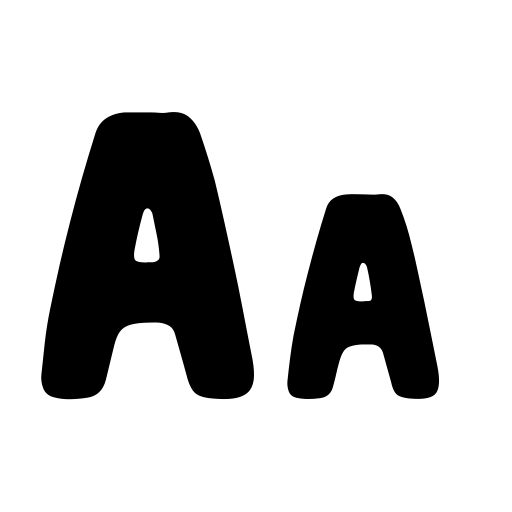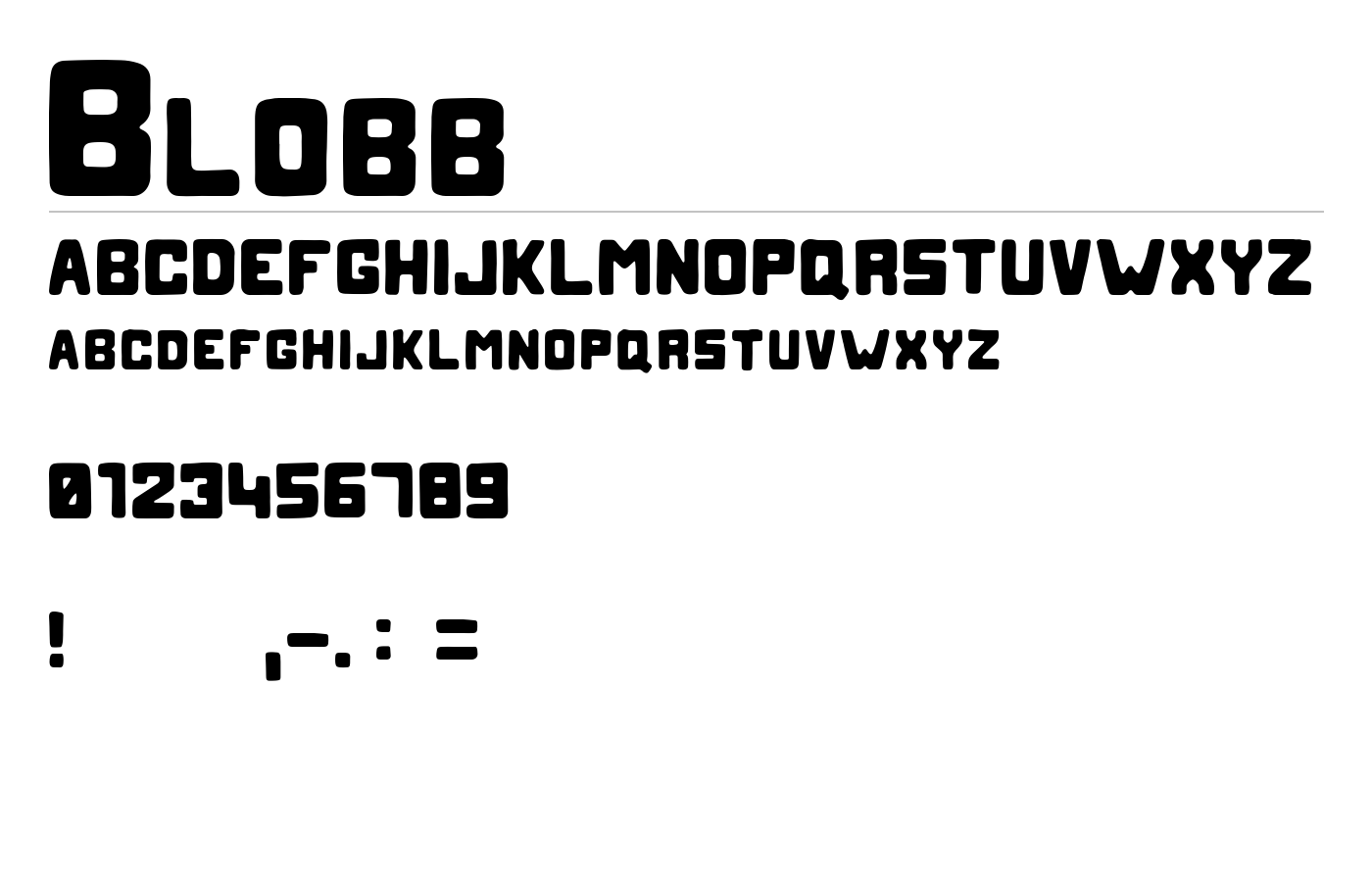
Blobb Font is a bold, rounded sans-serif typeface with a playful and slightly quirky character. Its thick, soft-edged letterforms and consistent weight create a friendly and approachable look, making it ideal for eye-catching headlines, children's materials, and casual branding. With its unique, blob-like shapes, this font brings a fun, informal vibe that works well in creative projects and lighthearted designs.
Blobb Font
About Blobb Font
| Font family | Blobb Font |
| Designer | Varga Áron |